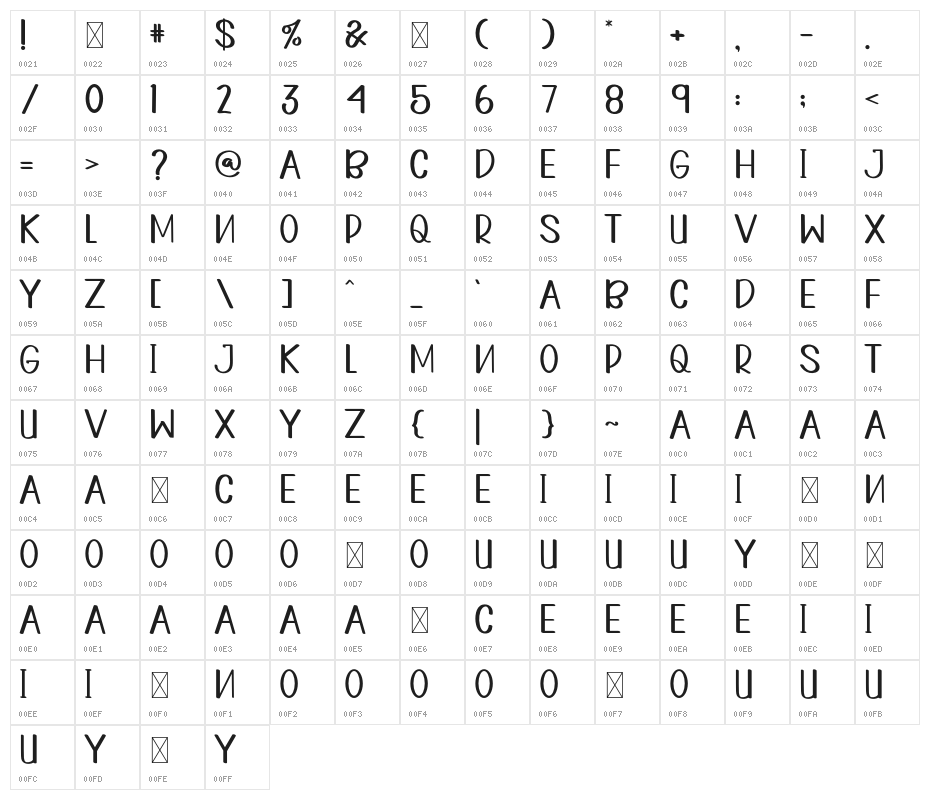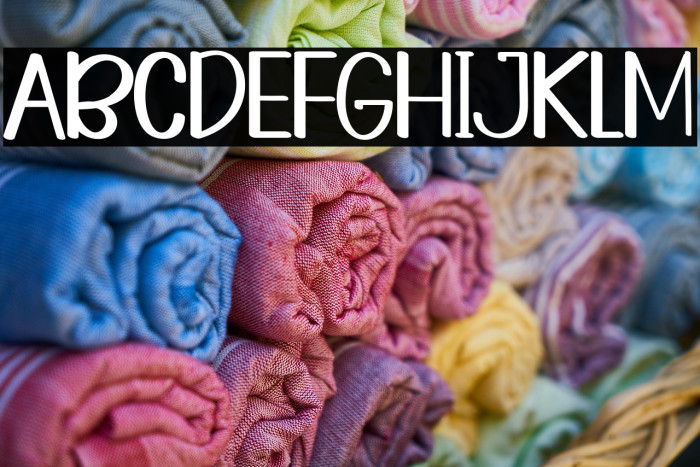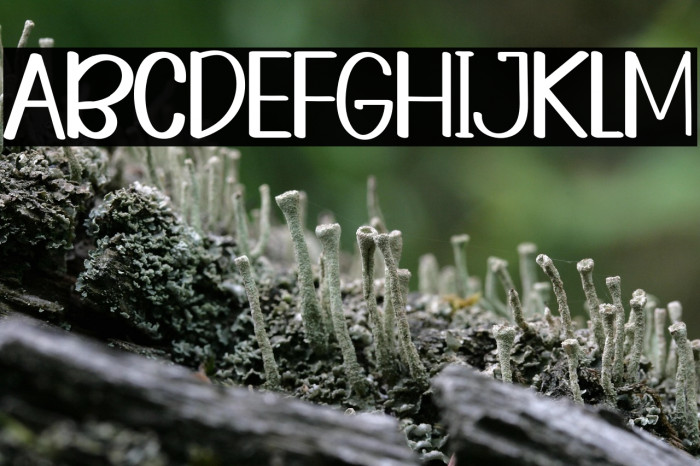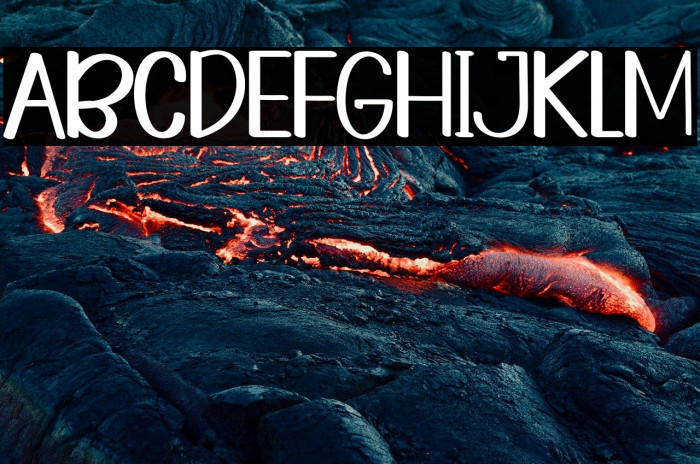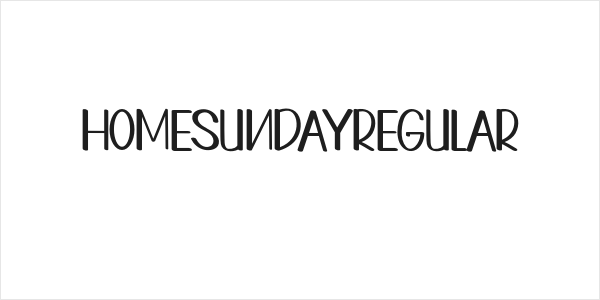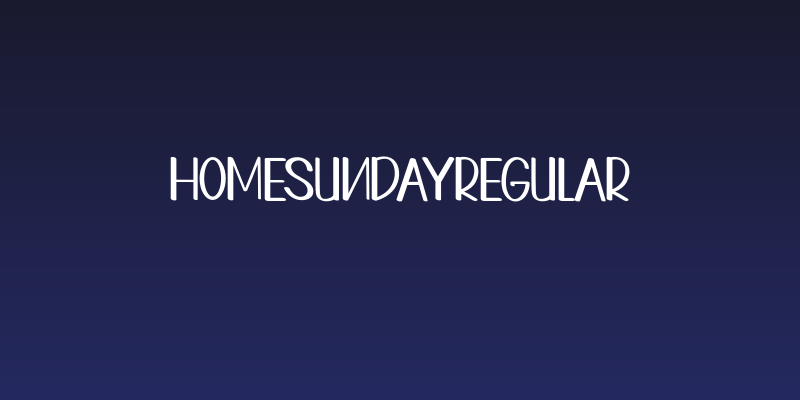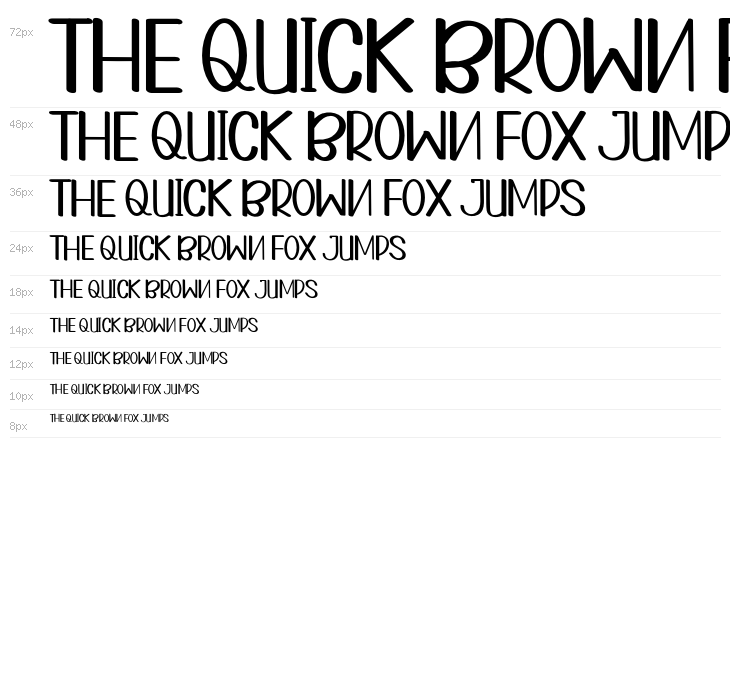
HOMESUNDAYRegular Font
HOMESUNDAYRegular Description
This font features a playful and modern design with a unique blend of rounded and angular elements. The uppercase letters are bold and slightly condensed, giving them a strong presence. The lowercase letters maintain a consistent style, with a slight slant that adds a dynamic feel. Numbers are well-proportioned and align seamlessly with the overall aesthetic. Special characters are creatively designed, maintaining the font's playful nature. The font's overall appearance is clean and legible, making it suitable for a variety of design projects.
| Proposed Projects | Ideal for children's books, playful branding, creative posters, and modern web design. |